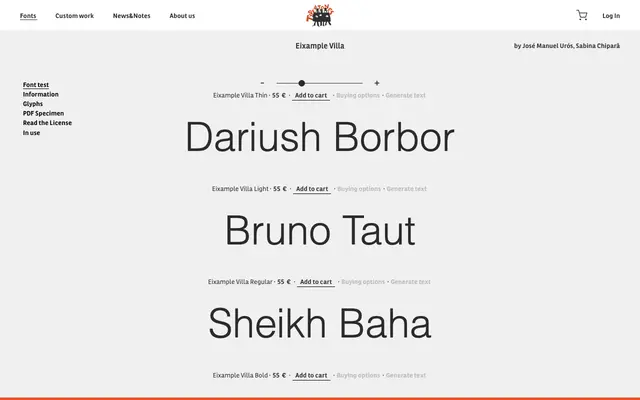
Eixample Villa
A geometric sans in six weights by José Manuel Urós and Sabina Chipară, named after the Barcelona district renowned for its rational grid planning.
Named after the Eixample, Barcelona's nineteenth-century grid district, this geometric sans runs from Thin to Heavy across six weights. The specimen text draws on figures associated with urban planning and architecture, from Ildefons Cerdà to Bruno Taut, suggesting the typeface is consciously positioned within that tradition. Designed by José Manuel Urós and Sabina Chipară at Type-ø-tones.
The name and specimen suggest a clean, structured sans with geometric tendencies, consistent with type released by Type-ø-tones in the tradition of rationalist urban planning aesthetics.